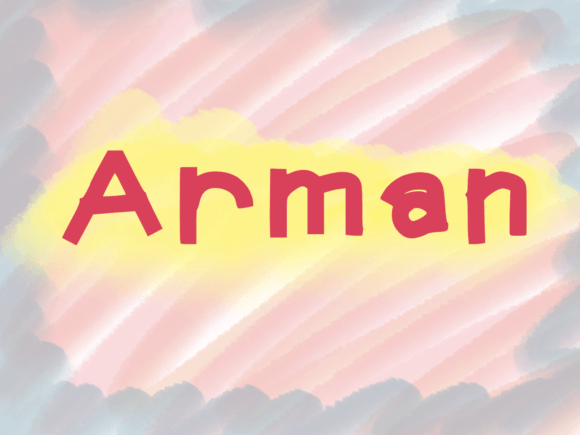
Introducing Arman Font: A Simple and Modern Display Font for Uncomplicated Projects
In the world of typography, fonts play a crucial role in conveying the tone and personality of a design. Whether you’re working on a notebook, book cover, social media post, or any other project, the right font can make all the difference. If you’re looking for a simple and modern display font that’s perfect for uncomplicated projects and informal designs, look no further than Arman Font.
What is Arman Font?
Arman Font is a clean and contemporary display font designed to add a touch of elegance and sophistication to your designs. With its sleek lines and minimalist aesthetic, Arman Font is ideal for projects that require a straightforward and uncomplicated approach. Its simplicity makes it versatile and easy to pair with other fonts, allowing you to create unique and visually appealing combinations.
Key Features of Arman Font
- Simple and Modern Design: Arman Font boasts a simple and modern design that’s perfect for creating clean and uncluttered designs.
- Display Font: Arman Font is specifically designed as a display font, making it ideal for headlines, titles, and other attention-grabbing elements.
- Versatile: Arman Font is versatile and can be used on a variety of projects, including notebooks, book covers, social media posts, and more.
- Easy to Read: Arman Font is designed to be easy to read, even at smaller sizes, making it perfect for body text and captions.
Use Cases for Arman Font
Arman Font is perfect for a wide range of projects, including:
- Notebooks and Journals: Add a touch of elegance to your notebook or journal designs with Arman Font.
- Book Covers: Use Arman Font to create eye-catching book covers that stand out on bookshelves.
- Social Media Posts: Add a professional touch to your social media posts with Arman Font.
- Posters and Flyers: Use Arman Font to create bold and attention-grabbing posters and flyers.
- Branding and Packaging: Arman Font is perfect for branding and packaging designs that require a clean and modern aesthetic.
Tips for Using Arman Font
Here are some tips for getting the most out of Arman Font:
- Pair with Other Fonts: Experiment with pairing Arman Font with other fonts to create unique and visually appealing combinations.
- Use for Headlines and Titles: Arman Font is perfect for headlines and titles, so use it to add a touch of elegance to your designs.
- Keep it Simple: Arman Font is designed to be simple and uncomplicated, so keep your designs clean and minimal to get the most out of the font.
Arman Font is a simple and modern display font that’s perfect for uncomplicated projects and informal designs. With its clean lines and minimalist aesthetic, Arman Font is versatile and easy to pair with other fonts. Whether you’re working on a notebook, book cover, social media post, or any other project, Arman Font is a great choice for designers and crafters looking for a professional and elegant font.